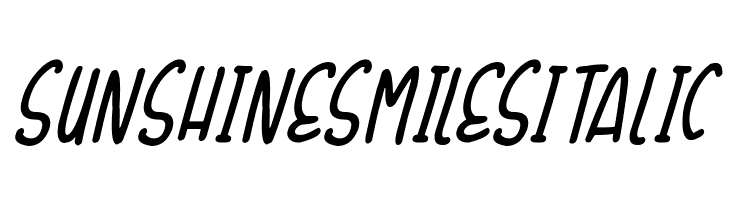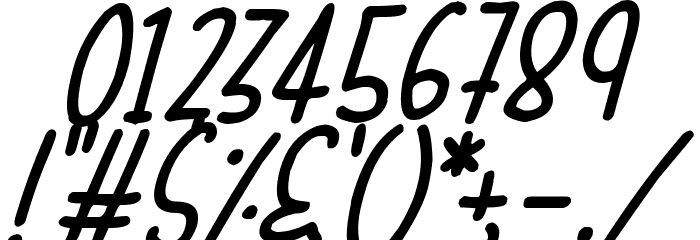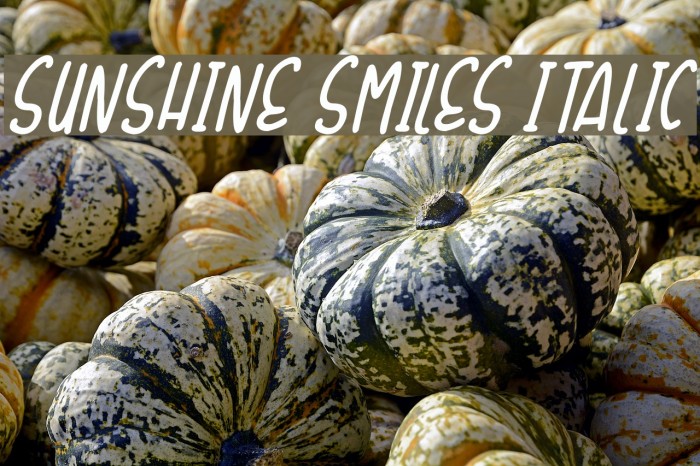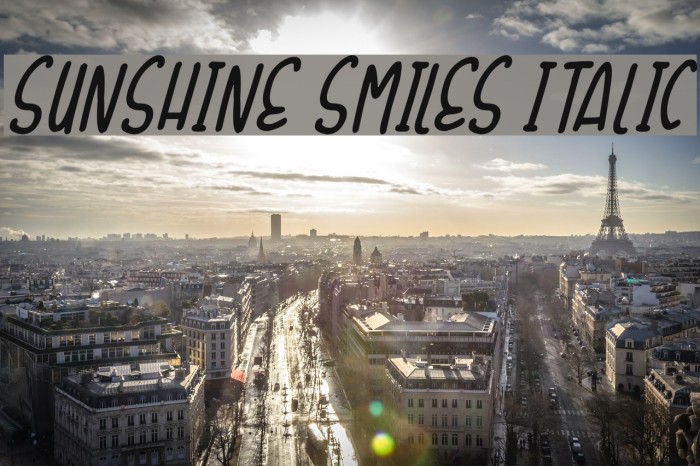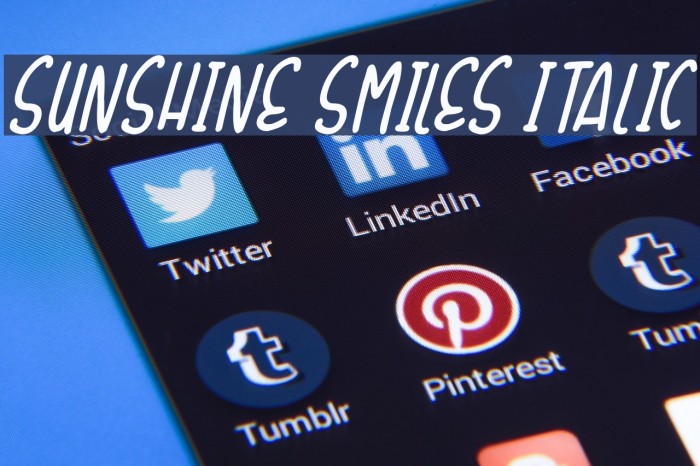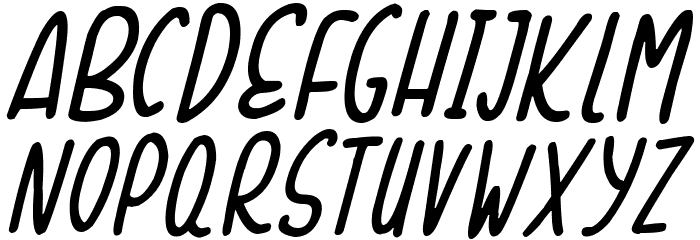
Sunshine Smiles Italic Font
This font exudes a playful and energetic vibe with its handwritten style. The letters are slightly slanted, giving it an italic appearance that adds a sense of motion and fluidity. Each character is crafted with a consistent stroke width, maintaining a harmonious look throughout. The rounded edges and smooth curves contribute to its friendly and approachable feel. The spacing between characters is tight, which enhances the cohesive look of the text. This font is perfect for projects that require a personal touch or a casual, informal tone.
A playful, handwritten italic font with smooth curves and tight spacing.
• Proposed Projects: Ideal for greeting cards, children's books, playful branding, and social media graphics.